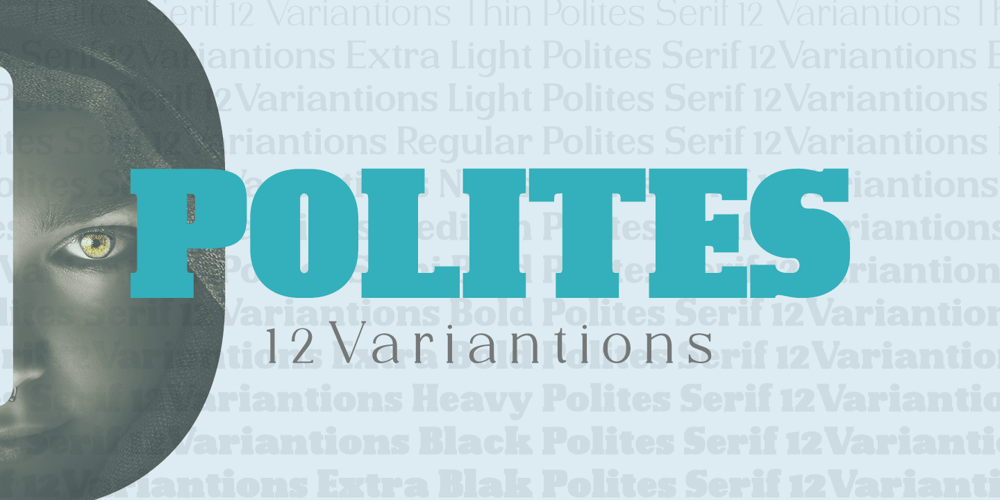
Polites Font Family was designed by Roiyani Teungku and published by Artisan Studio. Polites contains 12 styles and family package options. Polites is a millennial generation serif font family, made with a very soft touch and it comes in 12 upright weights. Polites works great in any branding project, for logos, magazines, films. The different weights give you a full range of applications, while the outlined fonts give a real modern feel to any project.Multilingual support for various languages, including: French, German, Spanish, Portuguese, Italian, Dutch, Finnish, Swedish, and more.OpenType features can be accessed by using OpenType smart programs such as Adobe Photo Shop, Adobe Illustrator, Adobe Indesign, Corel Draw and Microsoft Office. They can also be accessed through the character map.